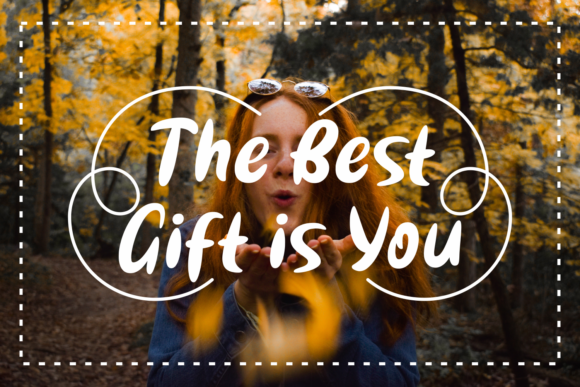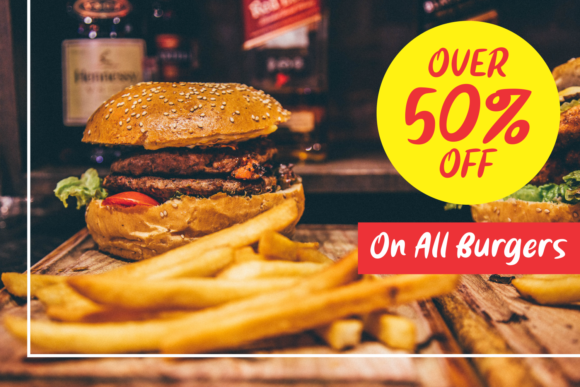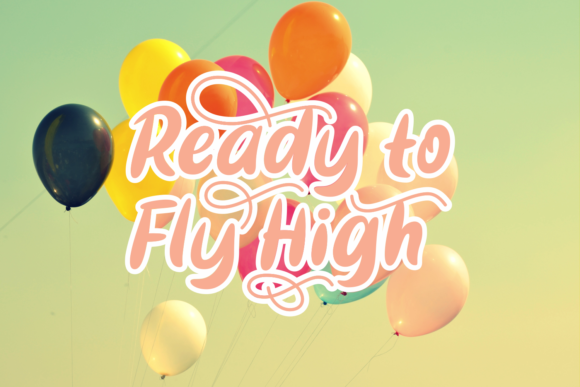
Bestina Font
About Bestina Font
The Bestina is a fun hand drawn typeface. It’s bold letters have a great readability and will add a fun touch to your designs.